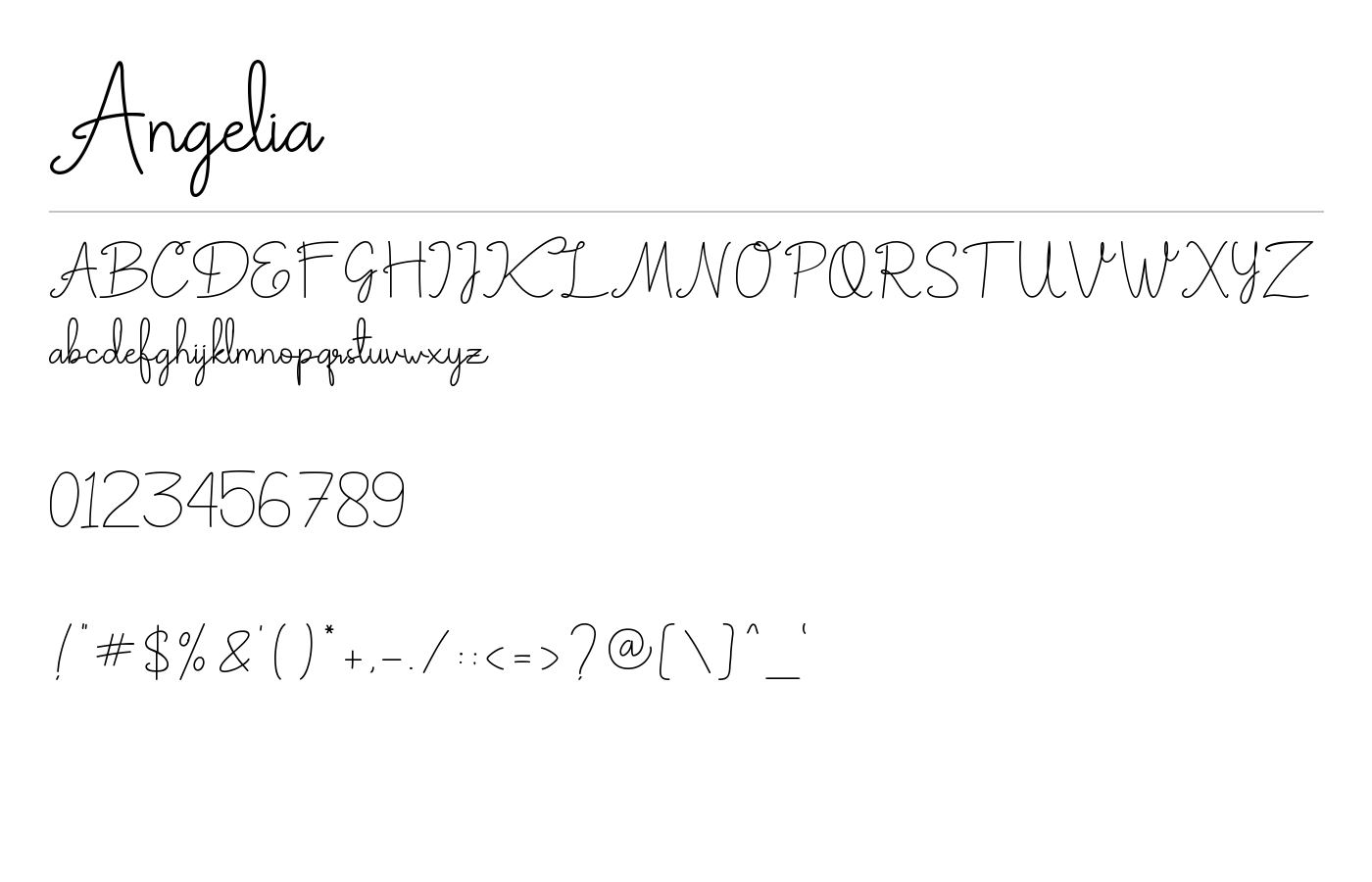
Angelia is a delicate and elegant handwritten script font with slender, flowing strokes that give it a graceful and airy feel. Its thin lines and slight irregularities add a personal, charming touch, making it ideal for feminine branding, wedding invitations, and creative projects that seek a warm yet sophisticated look. This font works best in headlines, logos, and decorative text where its unique style can truly shine.
Angelia Font
About Angelia Font
| Font family | Angelia Font |
| Designer | Dedi Tri Anggara |